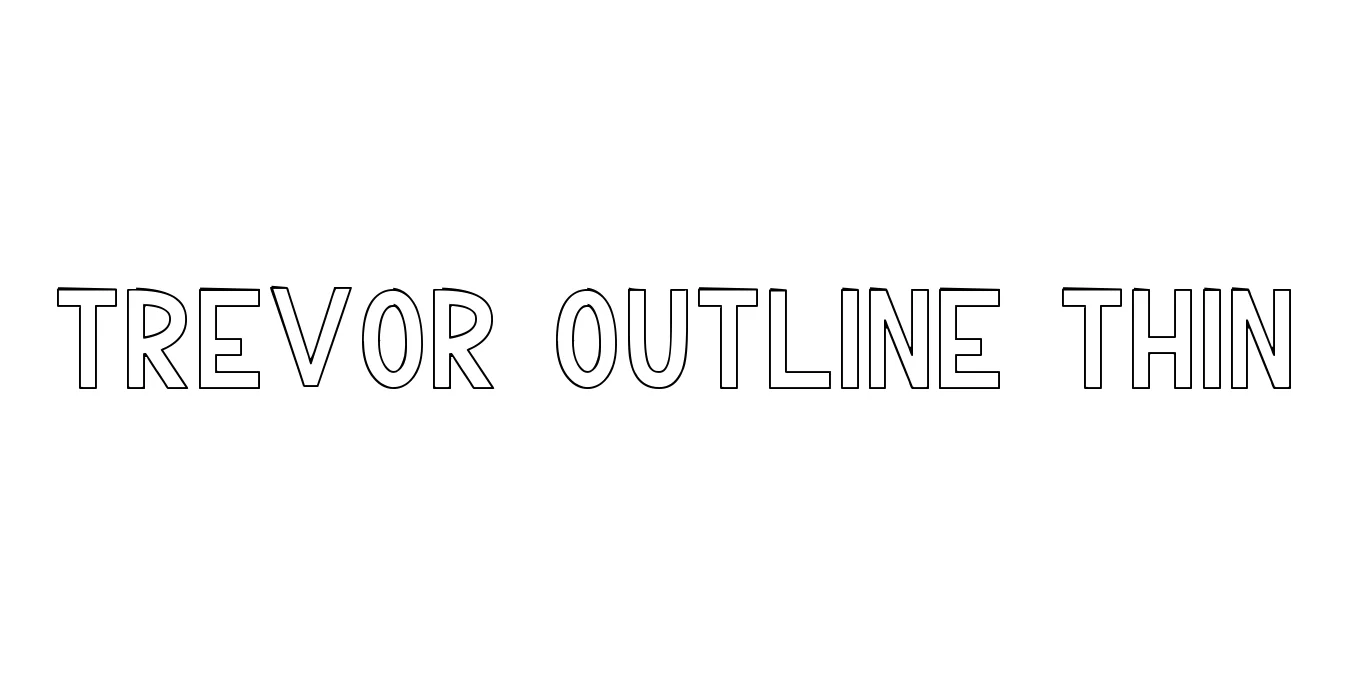
Trevor Outline Thin
Designed by Tinstudio
| Category | Display Sans Serif |
| Designer | Tinstudio |
Trevor Outline Thin is a sophisticated display typeface that embodies the principles of modern geometric design. Developed as a refined extension of the Trevor family, this thin outline variant focuses on structural clarity and minimalist elegance. Its delicate strokes are meticulously balanced to maintain legibility while offering a futuristic, wireframe-inspired aesthetic that is popular in contemporary digital art and high-end print media.
The typeface is often celebrated for its versatility in layered design environments. Because the Trevor Outline Thin lacks a solid fill, it allows designers to play with background textures, gradients, and photographic elements without obscuring the underlying imagery. It has become a staple for creative professionals looking to convey a sense of light, space, and architectural precision in their visual communications.
Trevor Outline Thin Best Uses
Ideal for luxury logos and modern corporate visual identities.
Excellent for high-end magazine headers and minimalist layout titles.
Perfect for hero sections and creative overlays on high-resolution imagery.
Well-suited for architectural exhibits and minimalist event posters.